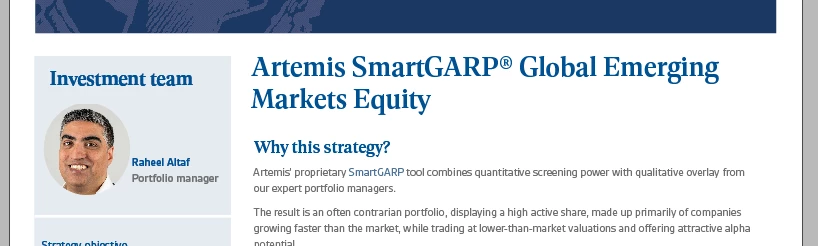
Geller font issue
I am having issues with Adobe Geller in indesign and illustrator the font appears really uneven and looks really bad, does anyone know why this is happening please?
the font looks awful at 100% but not when zoomed in. I am using Indesign 2025
It is a print font. Does it look printed also bad or only on screen?
it looks fine when I print it, only onscreen and in pdf
So it is probably only a screen issue.